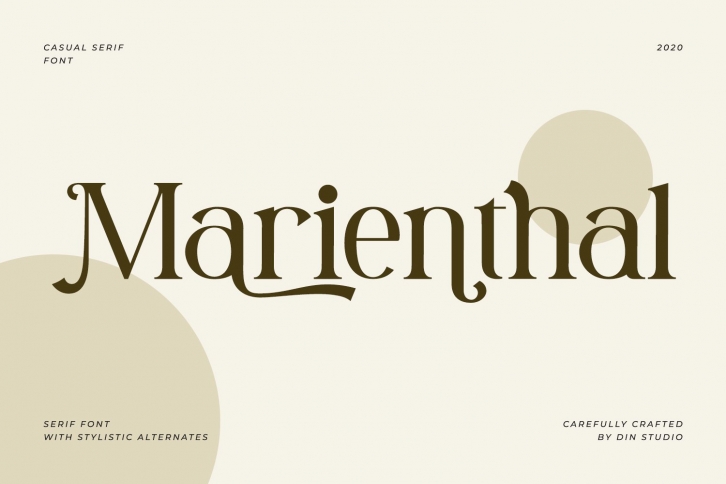
Marienthal-Casual Serif Font Download
Marienthal-Casual Serif is a great font that was designed by Din Studio. Imagine the amount of combinations you can create using this font! The archive is 2.39 MB and it was released on September 10, 2020. Marienthal-Casual Serif looks beautiful on wedding invitations, greeting cards, logos, posters, labels, t-shirt designs, logos, business cards and is perfect for use in ink or watercolor works, fashion, magazines, packaging and food menus, children's books and more!